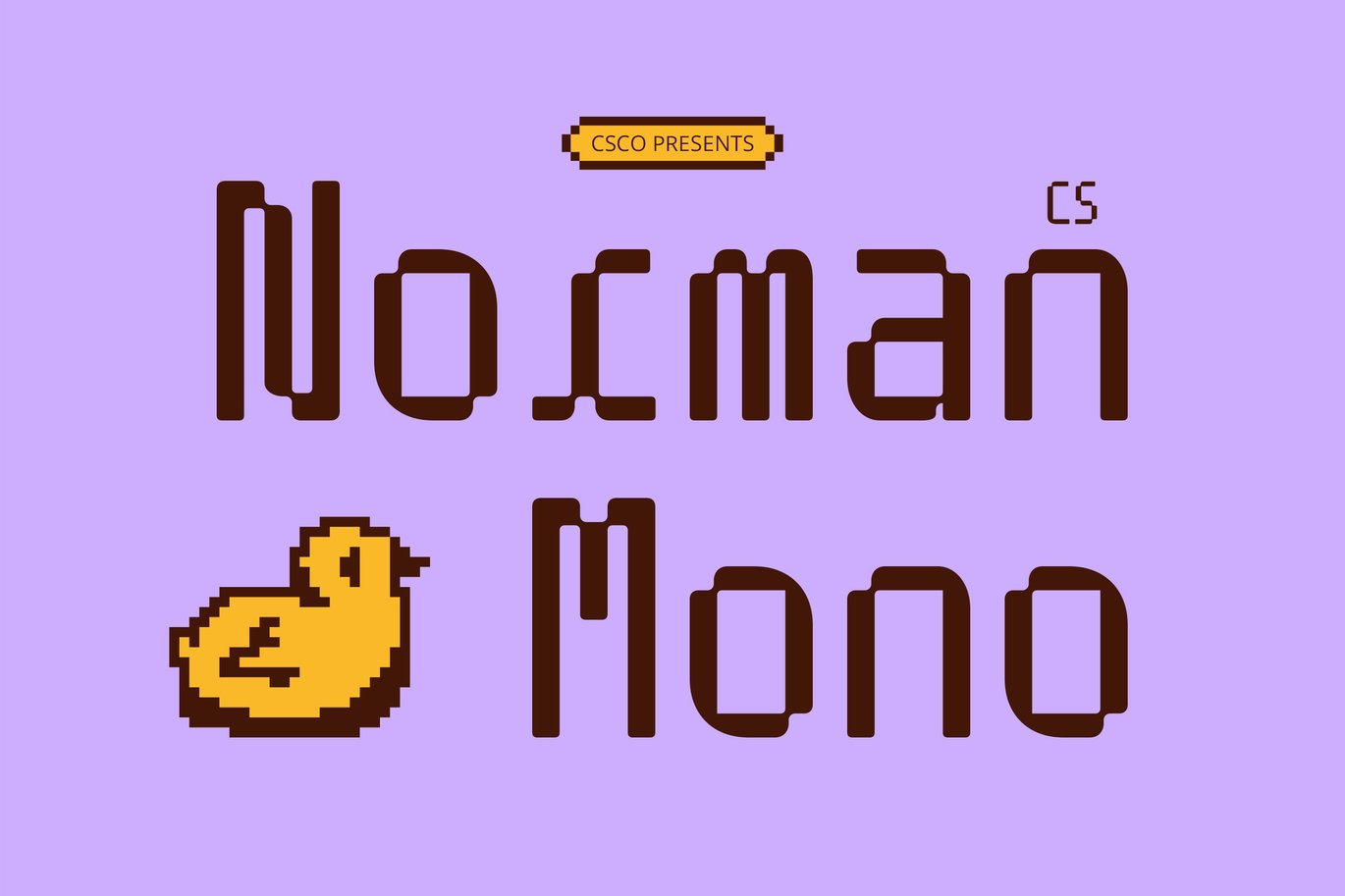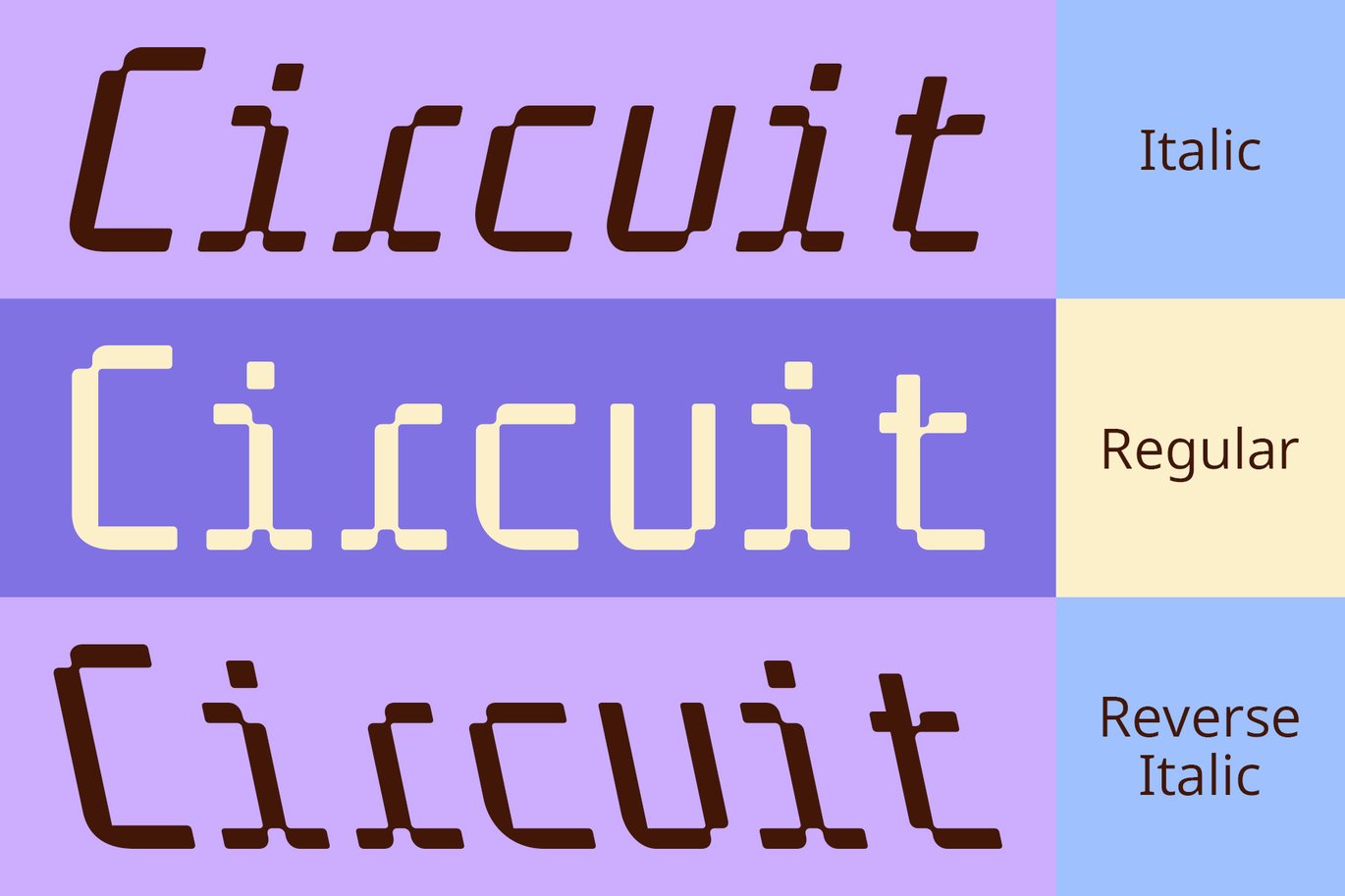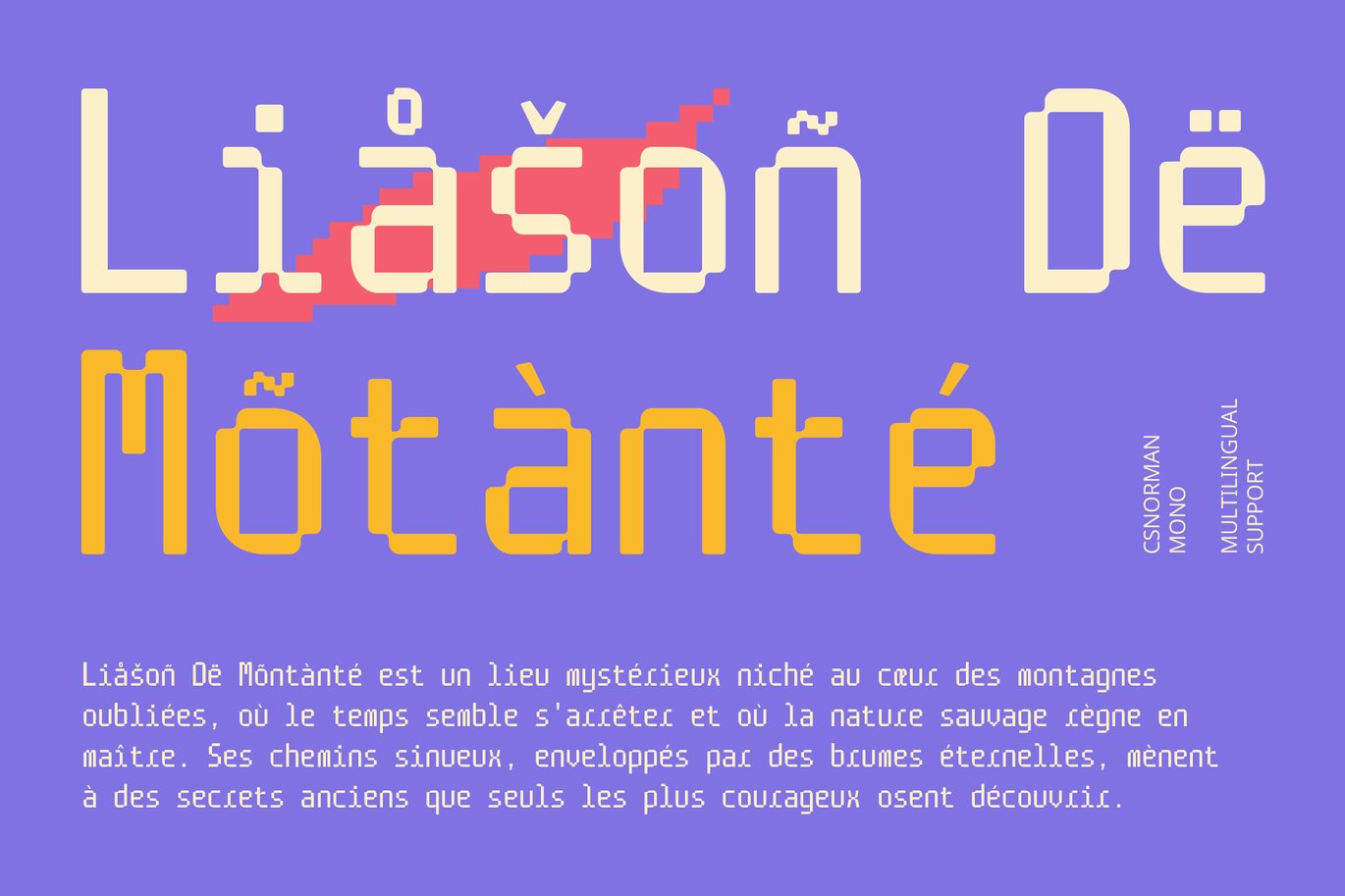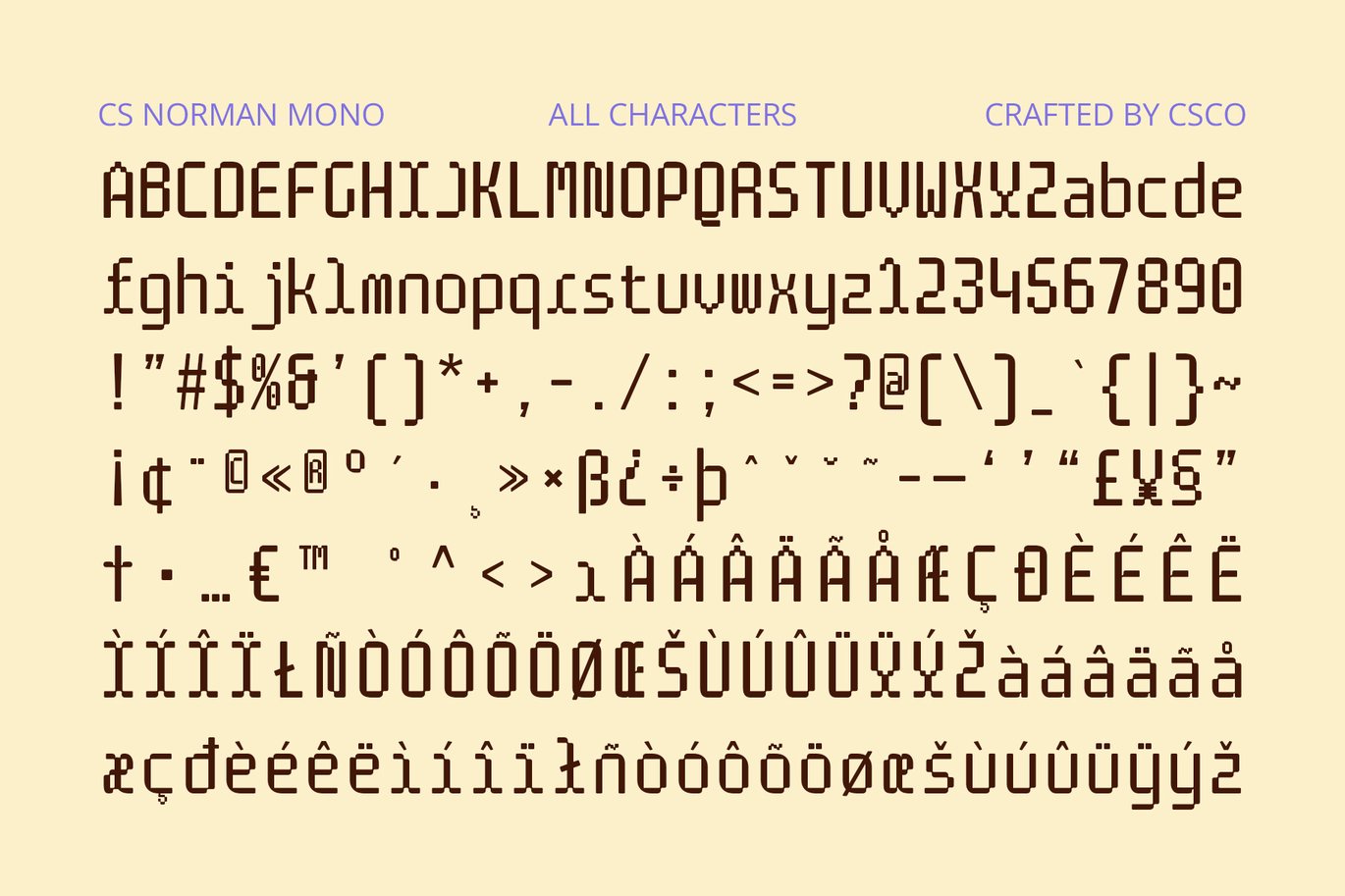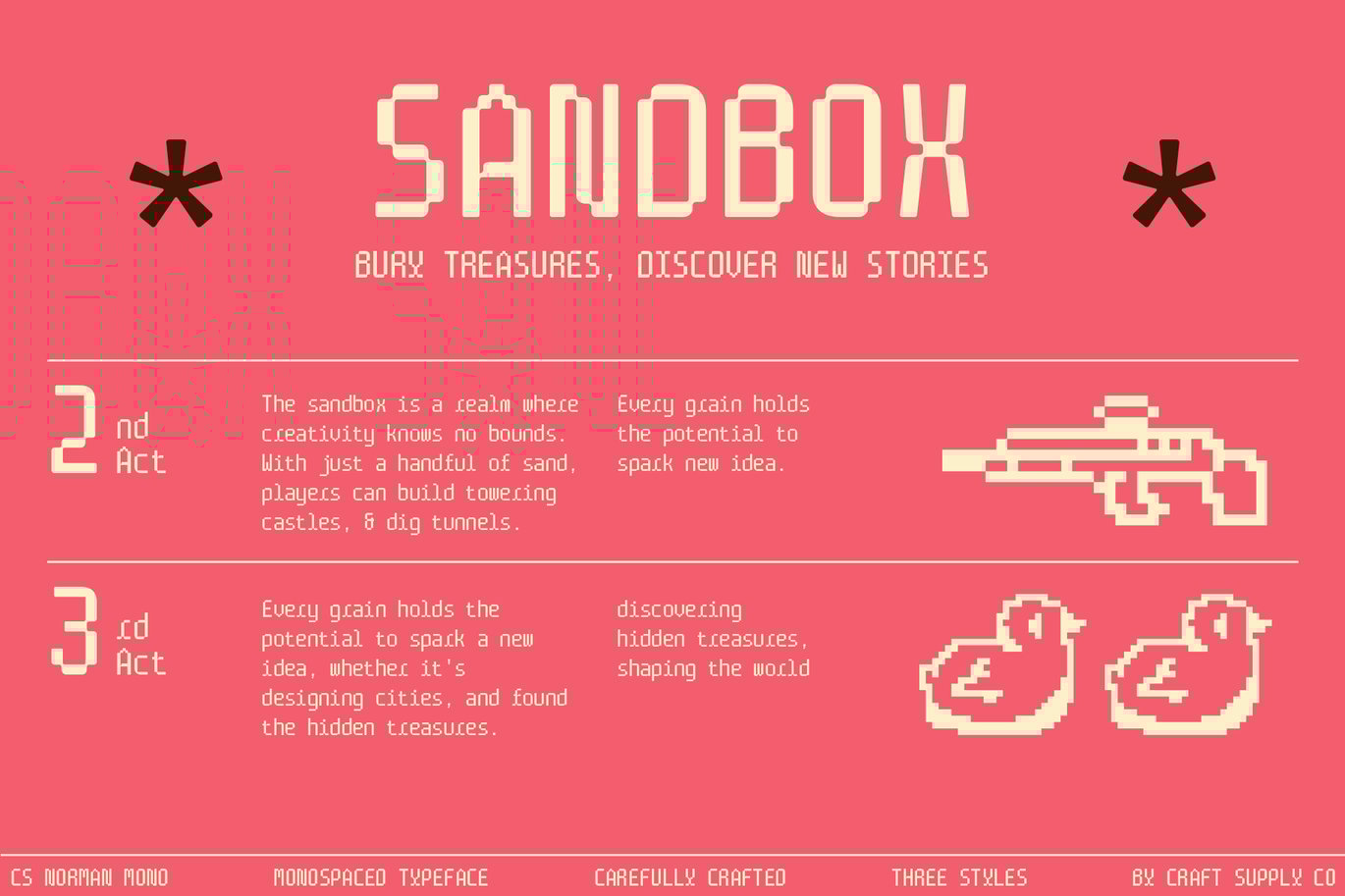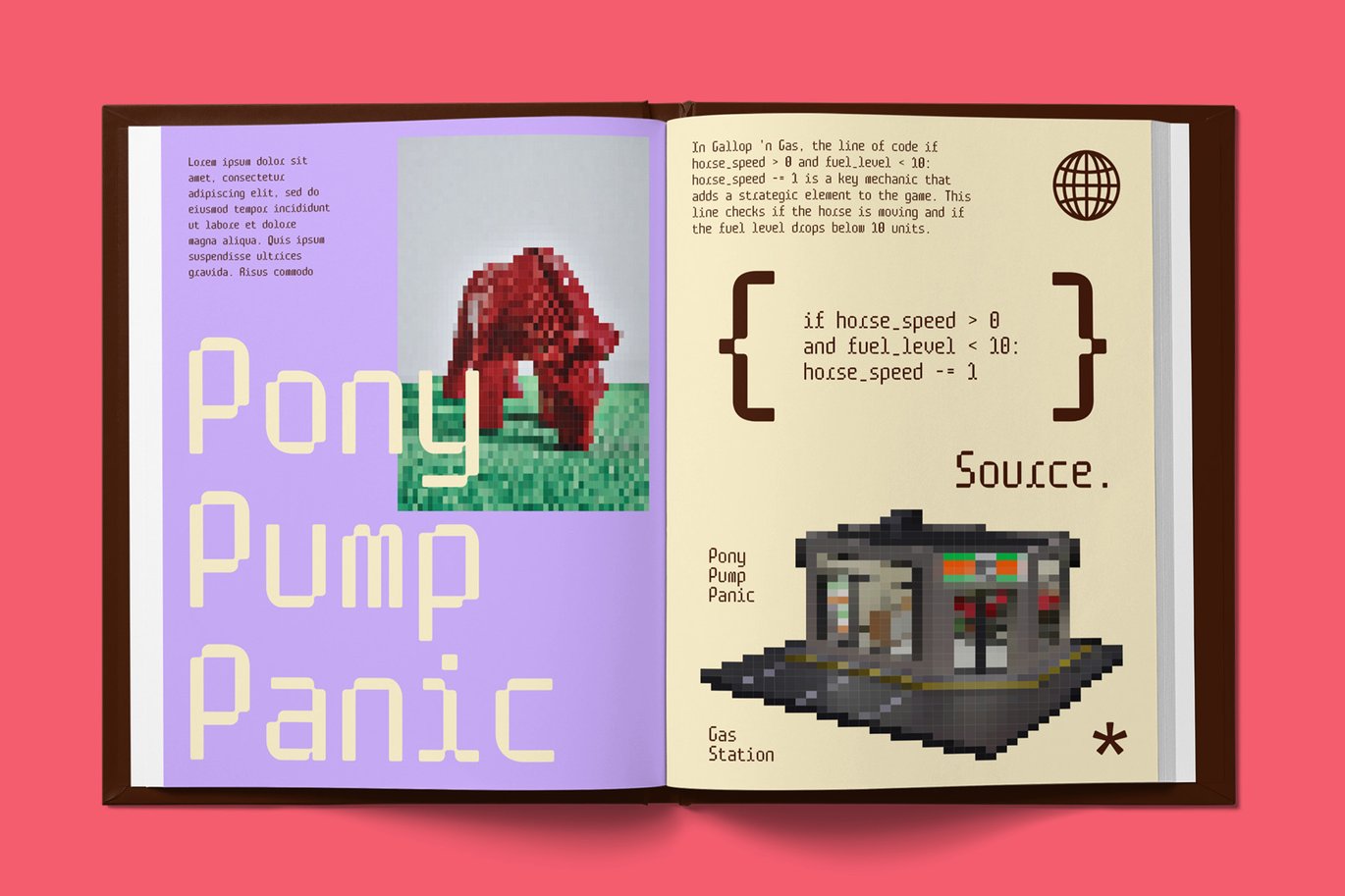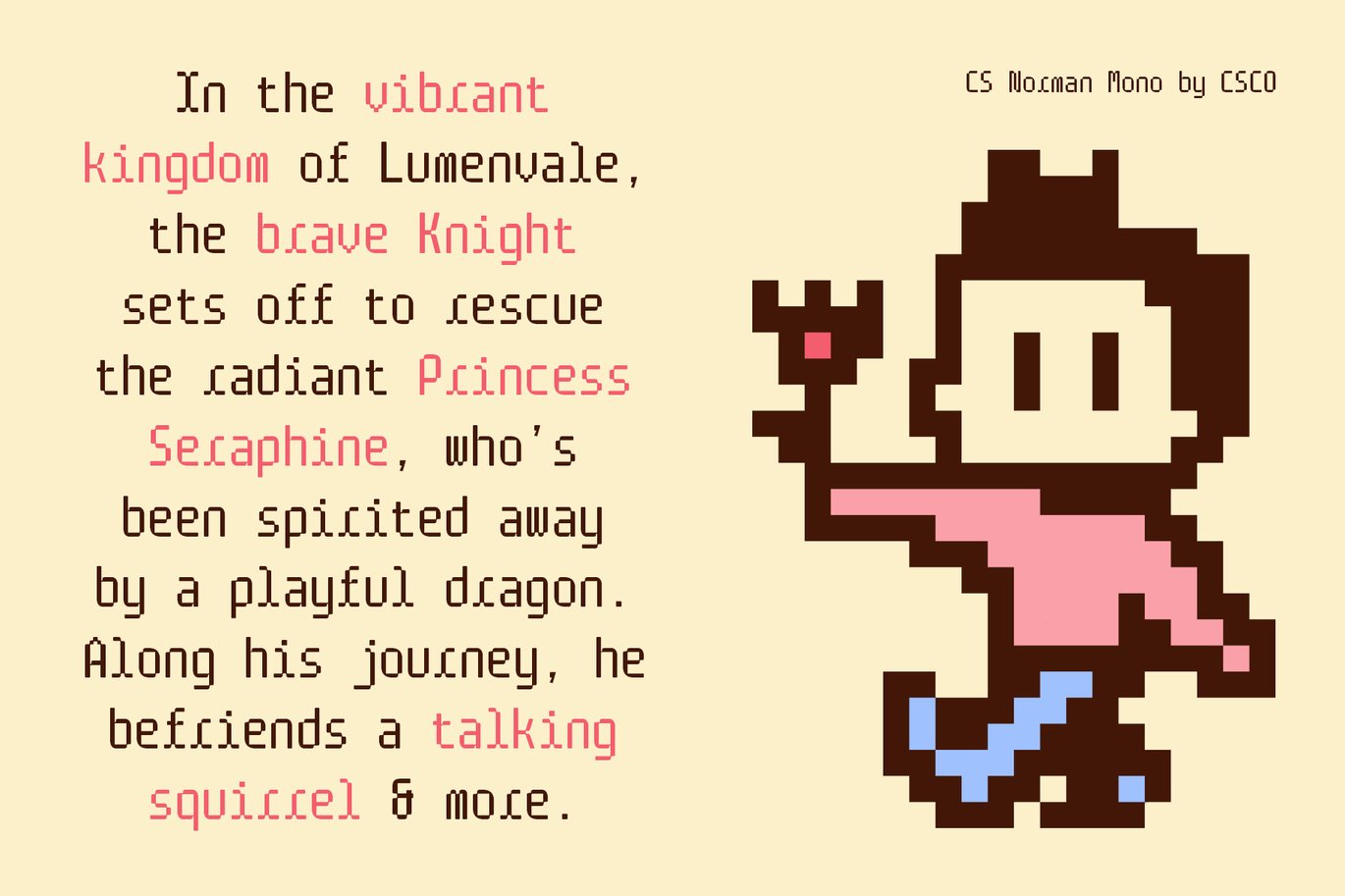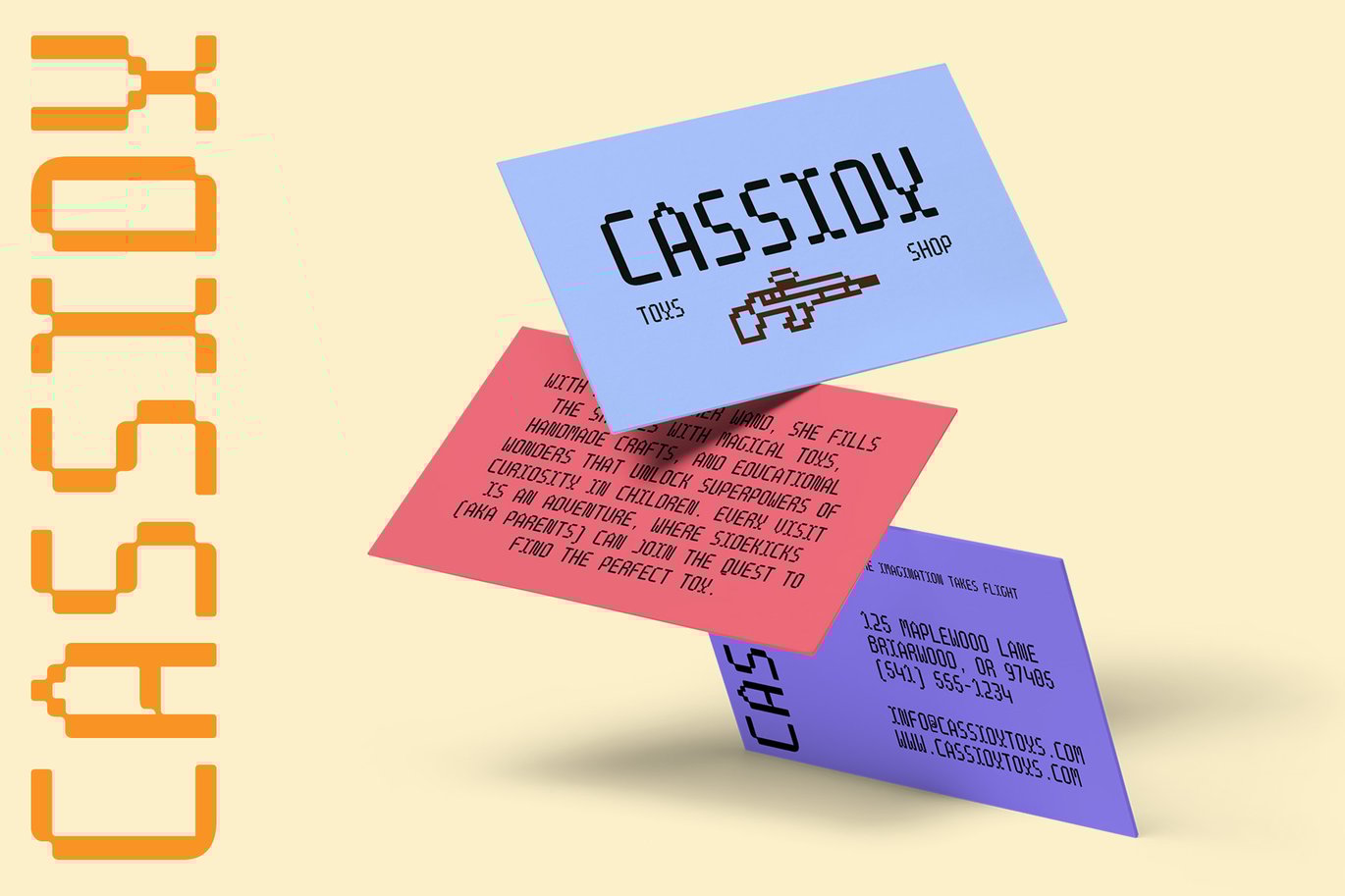
CS Norman Mono – Monospaced Font
CS Norman Monospaced Font: Reviving Retro Digital Aesthetics
Unique Monospaced Structure with Pixelated Charm
This cs font is a captivating display sans serif font that seamlessly combines a monospaced structure with pixelated elements, resulting in a distinctive and engaging appearance. Its consistent and regular characters evoke a strong retro vibe, reminiscent of the vibrant aesthetic of the ’90s. This unique blend of styles makes it a standout choice for various creative projects.
Playful and Nostalgic Appeal
The pixelated effect in this monospaced font adds a nostalgic touch that transports viewers back to the early days of digital design. Ideal for event posters, retro gaming graphics, and creative branding, this font infuses a playful and vintage feel into your designs. Its charming character is perfect for projects that aim to evoke feelings of nostalgia while capturing attention.
Versatile for Diverse Design Applications
CS Norman Mono’s monospaced structure ensures uniform spacing, making it an excellent choice for code displays, technical documentation, and any design requiring clarity and consistency. Despite its retro influences, the font’s versatility allows it to adapt to modern design needs, creating a striking contrast between contemporary aesthetics and vintage inspiration.